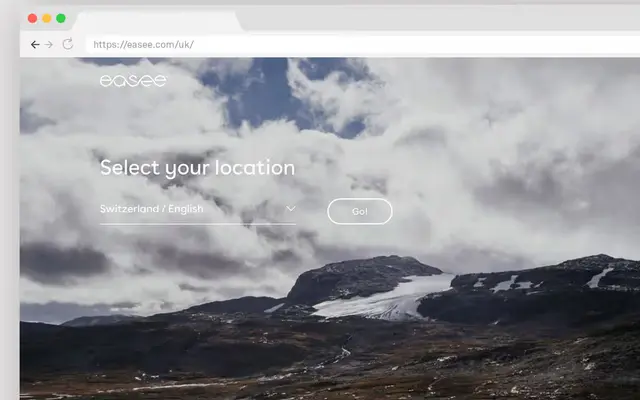
Buenos Aires
A geometric sans inspired by Futura and Avenir, with swash details on the lowercase a and l that temper its structural rigidity.
Built on a geometric skeleton drawn from Futura and Avenir, Buenos Aires introduces a distinct warmth through swash terminals on the lowercase a and l, and an idiosyncratic lowercase y. Open counters keep it legible at small sizes, while the range of seven weights from Thin to Black with matching italics makes it workable across body text and display settings. The family ships in static OTF and variable TTF formats, with the weight axis spanning the full Thin to Black range.
Explicitly inspired by Avenir and Futura, Buenos Aires follows a geometric construction with circular forms and a rational structure, softened by humanist details such as swash terminals on the lowercase a and l.